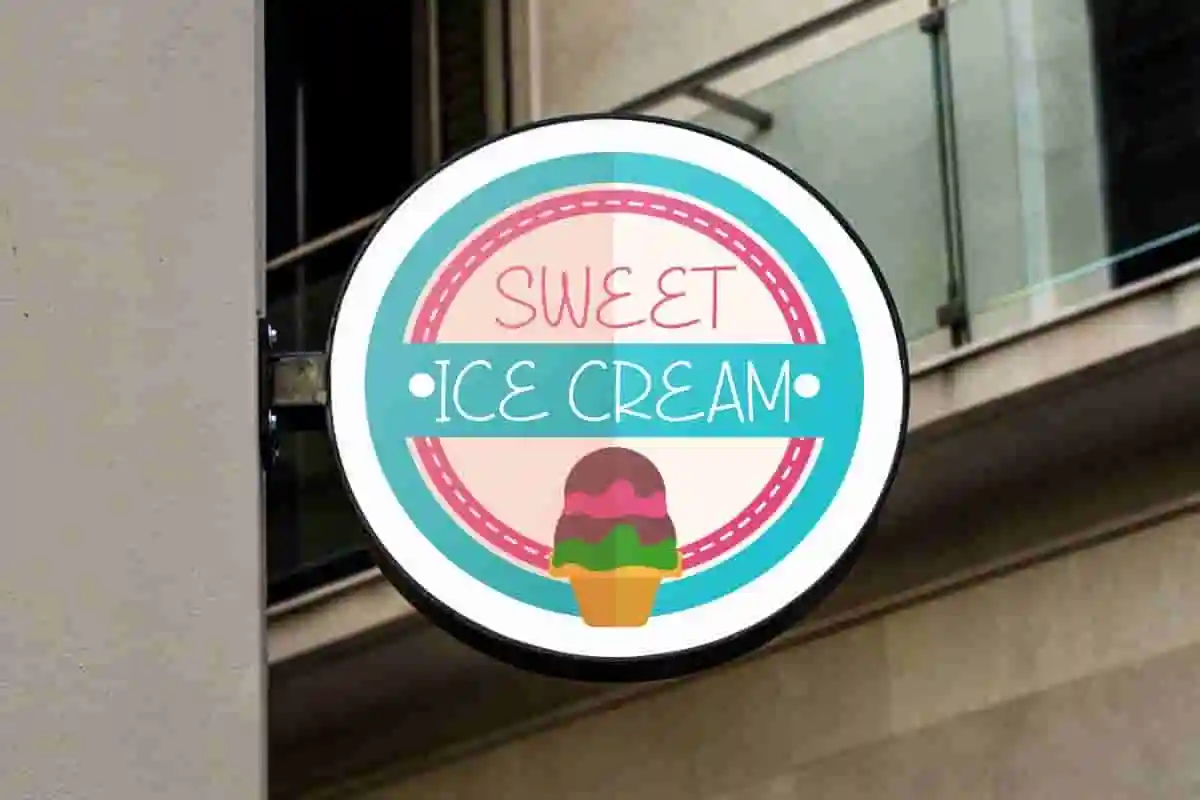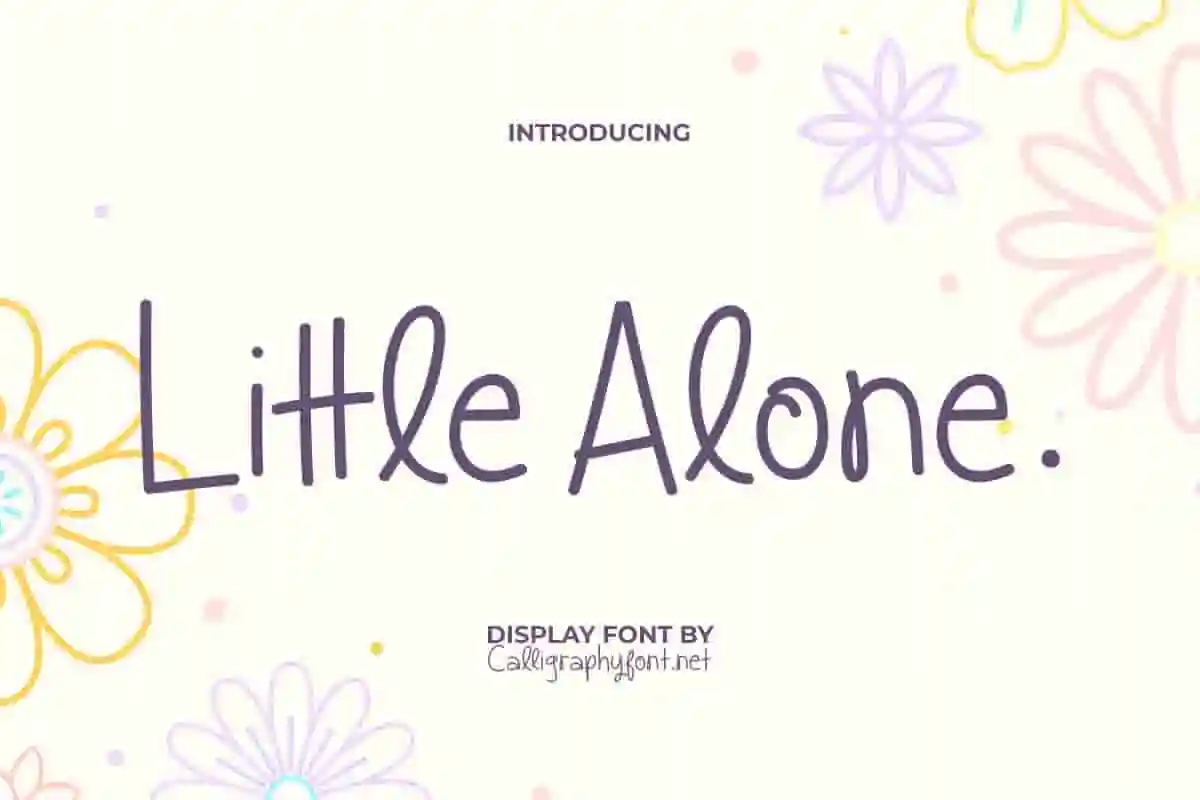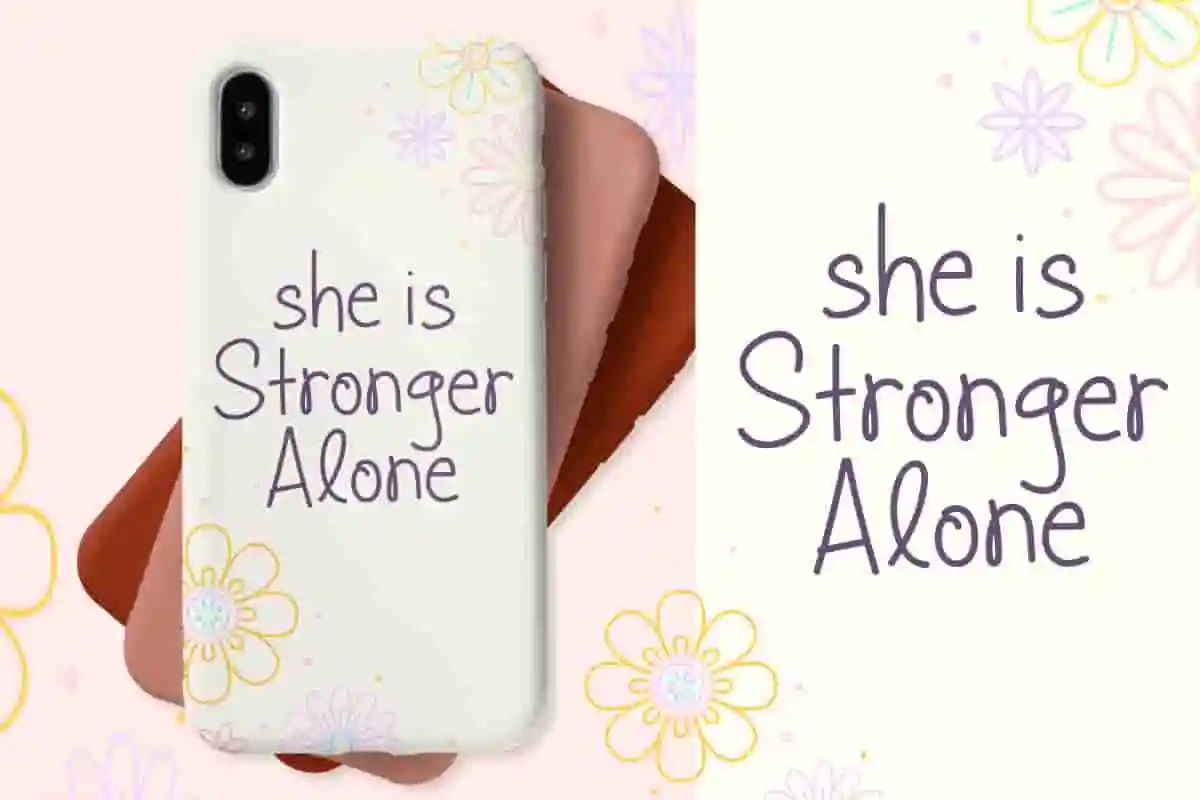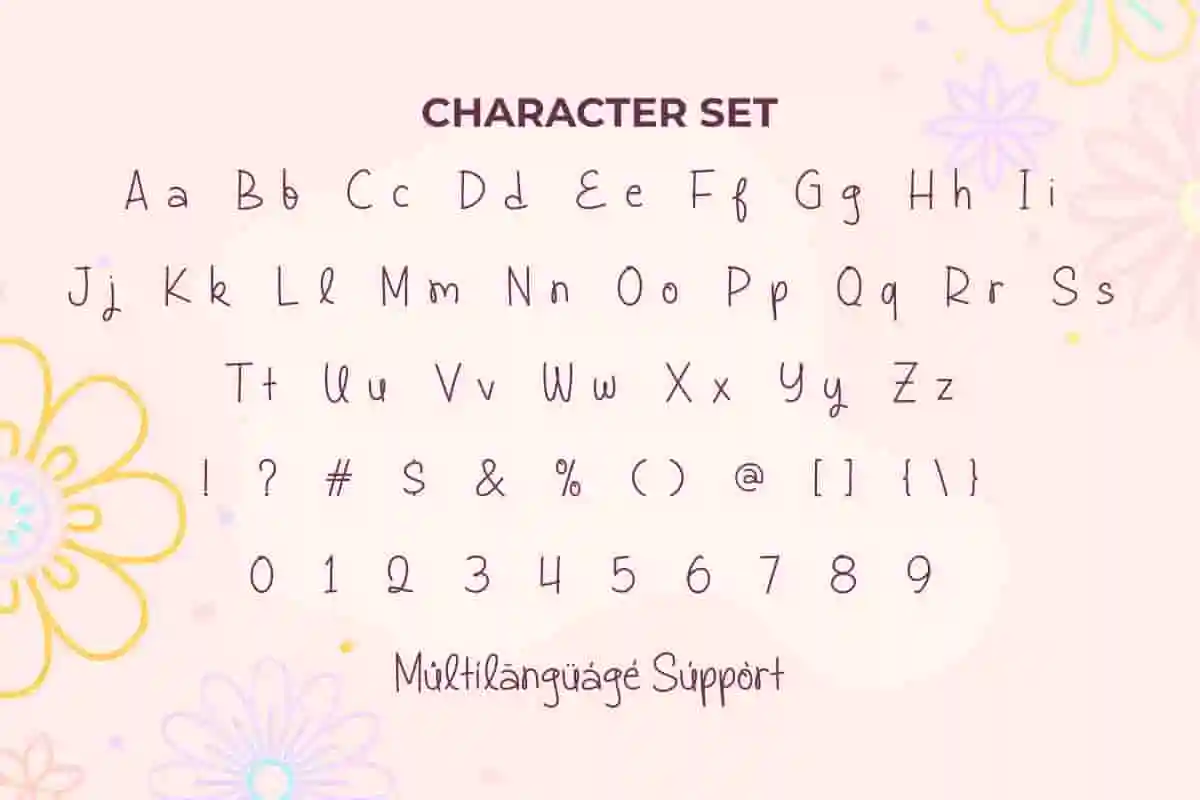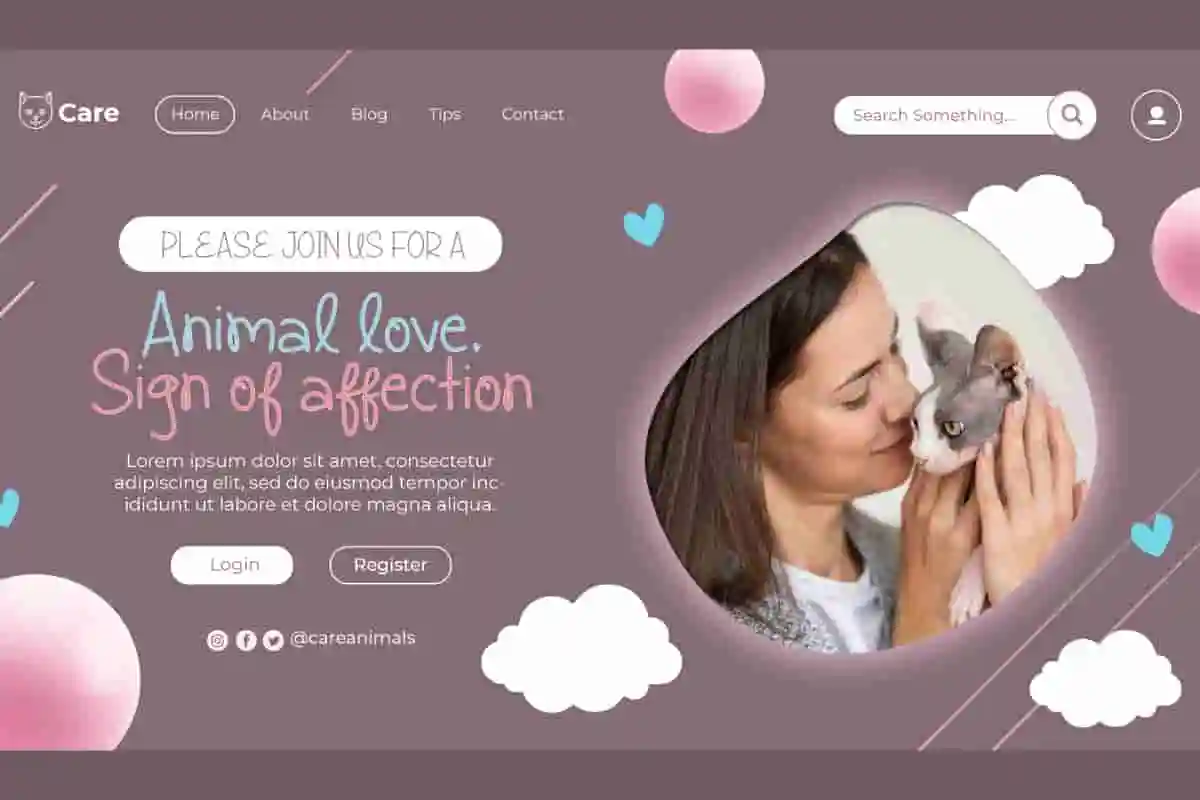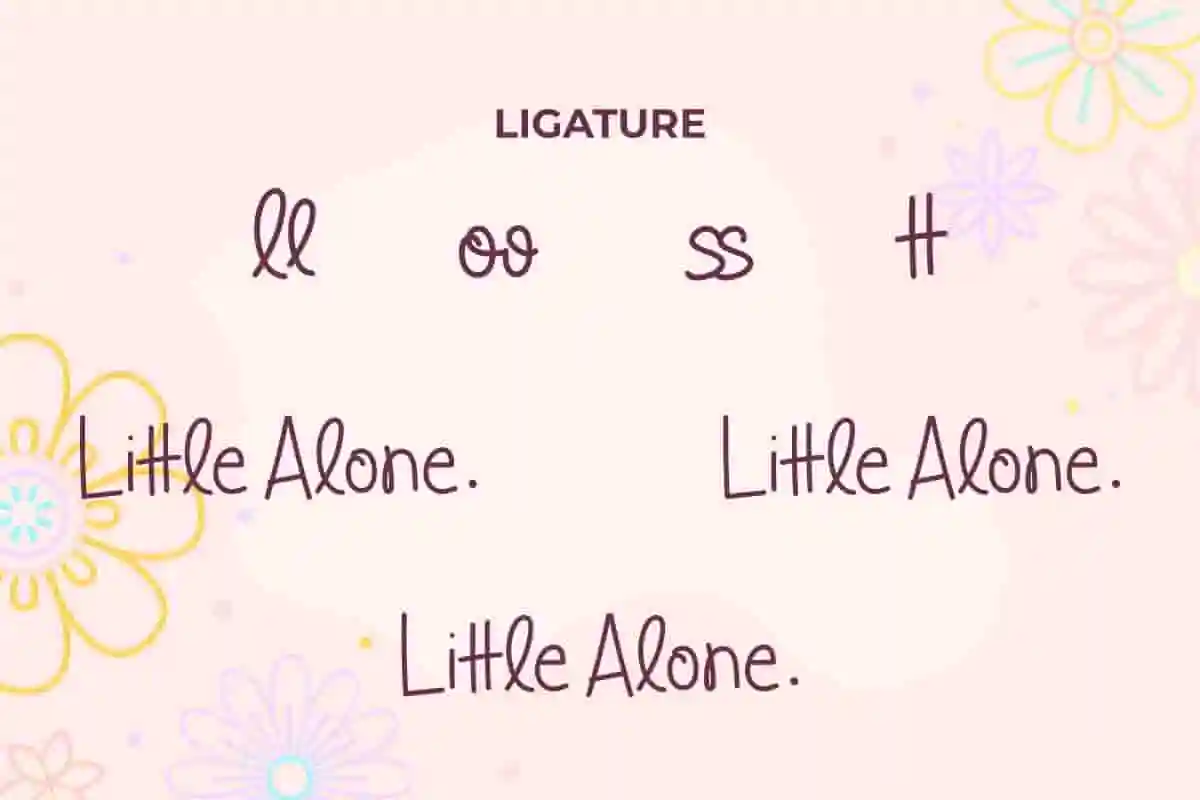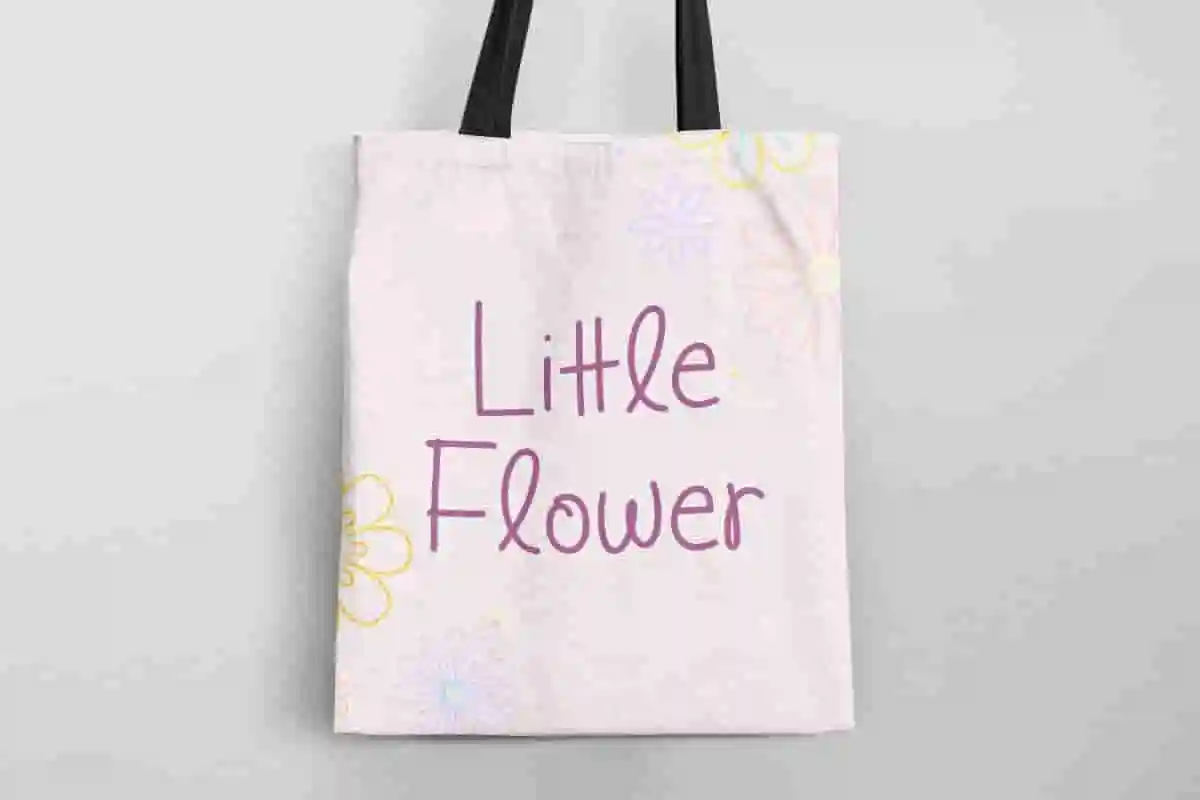
Little Alone Font
Little Alone Font is a joyful modern and aesthetic display font with fresh and cheerful letters carefully crafted to suit the needs of its users. Ready to have to add to your interesting typography collection!
Little Alone Font is a joyful modern display font that comes with fresh and cheerful letters brings a personal handcrafted touch. The letter’s minimalist, sleek and smooth shape makes it ideal for blogs, branding, brochure, cover, editorial design, flyer, greeting cards, header, headline, invitations, mockup, packaging, screen print, signs, stationery, template design, title, website, and any project that demands a sophisticated touch.
Bring a touch of charm, softness, and personality to your designs with Little Alone Display Font – a unique and stylish typeface crafted to elevate your creative projects. This font blends the warmth of handwritten style with modern elegance, making it a versatile choice for designers, crafters, and entrepreneurs looking to make their work stand out.
Little Alone Display Font is perfect for a wide variety of applications. Whether you’re designing wedding invitations, creating eye-catching logos, writing quotes, or building social media content, this font delivers a sense of authenticity and sophistication. Its smooth curves and balanced strokes add a natural, effortless feel that resonates with audiences and makes your design memorable.
What makes Little Alone Display Font special is its ability to adapt seamlessly across both digital and print projects. From business branding to personal stationery, from product packaging to fashion designs, this font works beautifully to communicate elegance and creativity. Its readability and stylish details ensure that every message leaves a lasting impression.
Little Alone Display Font will be perfect for creating a standout look. This will definitely add a personal touch that expresses your creative flair. With modern versatility suitable for whatever your business, such as accessories, bakery or pastries, cafe, candy shop, event organizer, fashion, florist, graphic design, handicraft, ice cream producer, movie, pet shop, photography, printing, publishing, and much more!